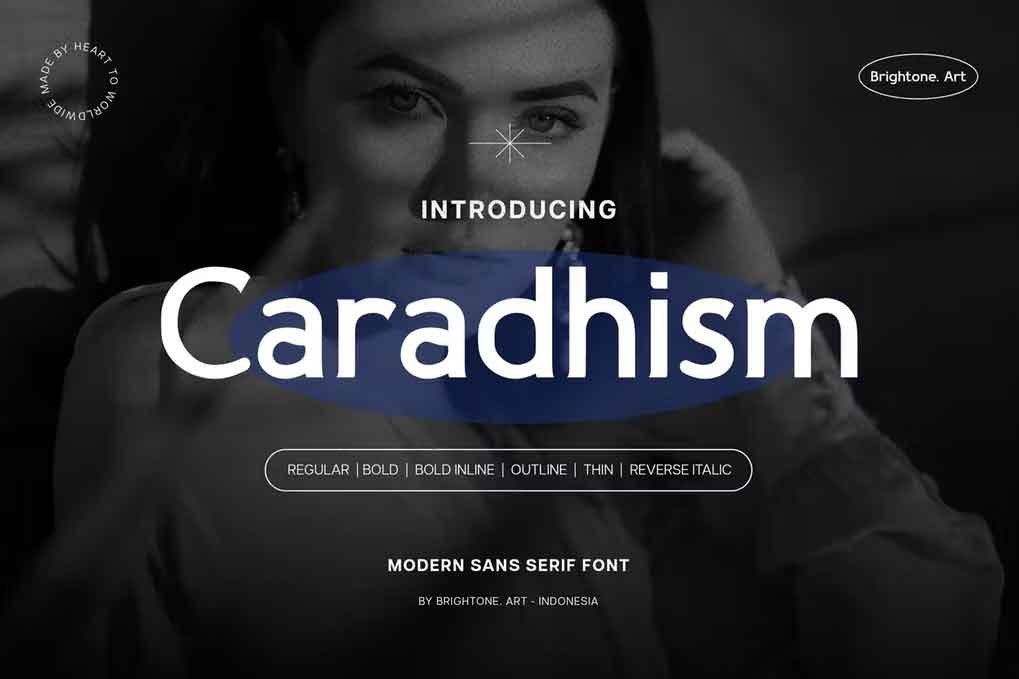
Caradhism Modern Font
Caradhism is modern Sans Serif font font with some little glyphic style includes: Caradhism comes in 6 different styles: Modern Sans Serif style for your logo lettering,…
Caradhism
is modern Sans Serif font font with some little glyphic style includes:
Caradhism comes in 6 different styles:
Modern Sans Serif style for your logo lettering, logo, label, packaging, sticker, branding and many more
Where Caradhism Modern Font works best
Caradhism Modern Font keeps its shape at 14 and 16 pixels, which is where interface text actually lives. Numbers and capitals stay distinguishable in tables.
Presentations are read at a distance; a clean sans with a strong bold is the safest hierarchy you can build in a hurry.
Simple letterforms survive angles, glare and movement, so Caradhism Modern Font suits door signs, menus boards and exhibition panels.
It sits in the Sans Serif Fonts group and reads as bold, branding, modern, sans serif. That makes it a candidate wherever those qualities help: headings, packaging, social graphics and brand work. Set it at the size you plan to use before deciding.